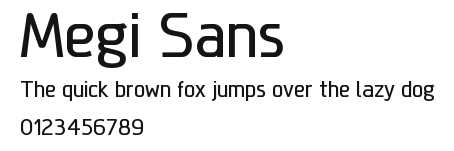
• Font Name: Megi Sans
About Megi Sans.otf
Megi Sans.otf is a modern, elegant sans-serif font designed for ultimate readability and visual harmony. Perfect for branding, headlines, web design, and print materials.